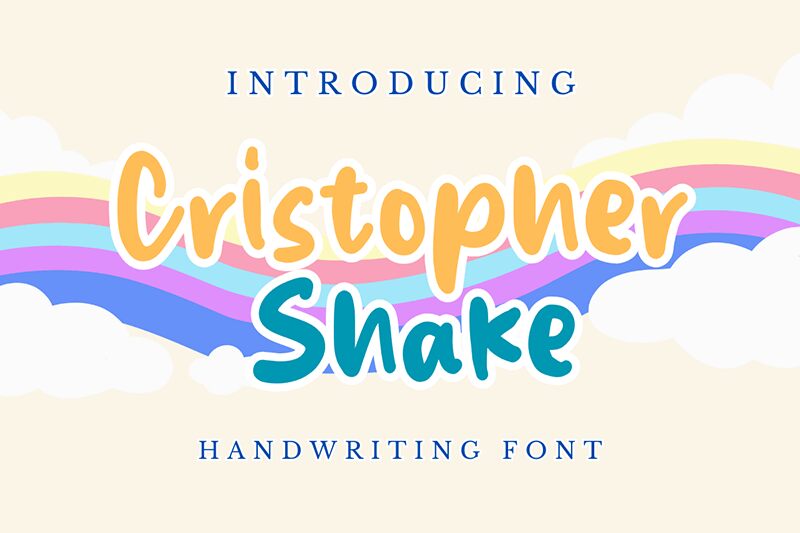
Cristopher Shake
Cristopher Shake font designed by Viola Type is an informal typeface with a handwritten style. It has slick and modern appeal that can make any design look beautiful. Truly a remarkable font, it impresses wonderful casual and natural elegance.
This free handwritten font is great for posters, invitations, labels, logos, t-shirts, book covers, branding projects and other advertising projects both online and offline. It added to the beauty of this font that can be used in practically every field you can think of.